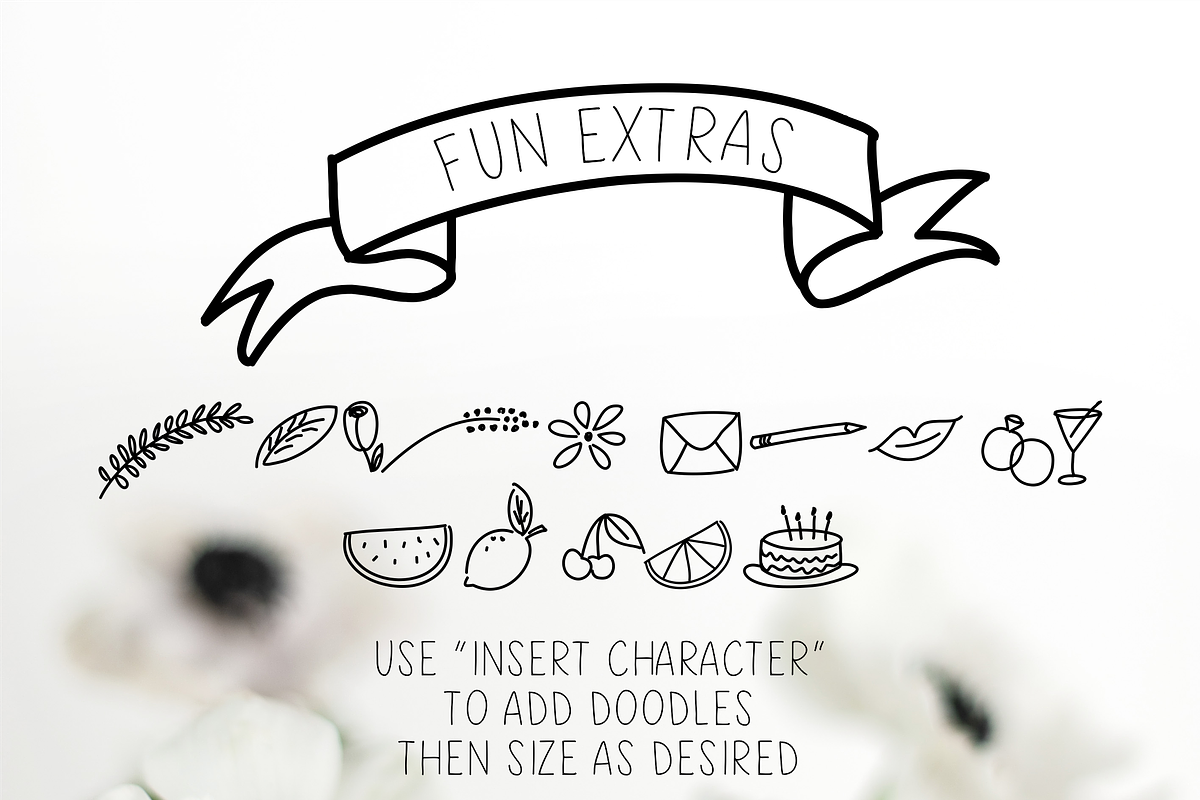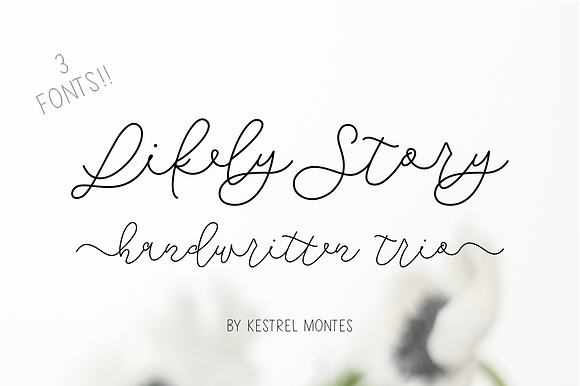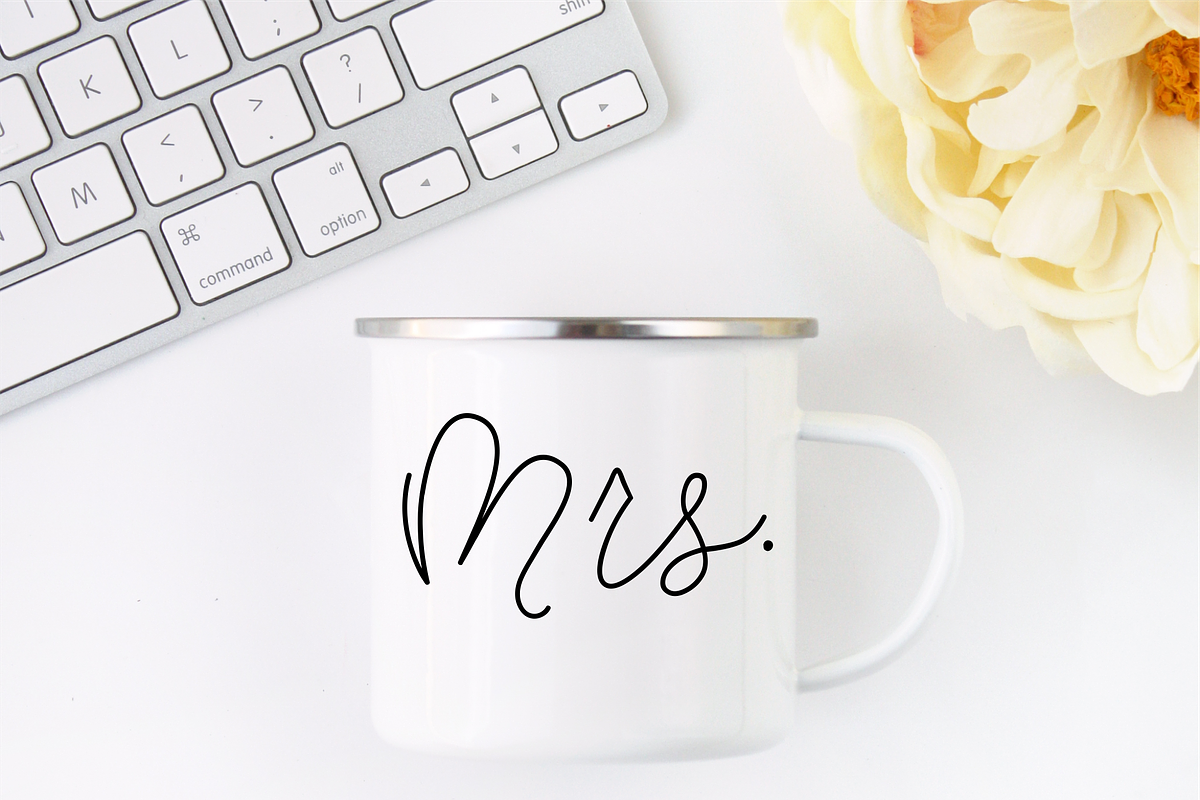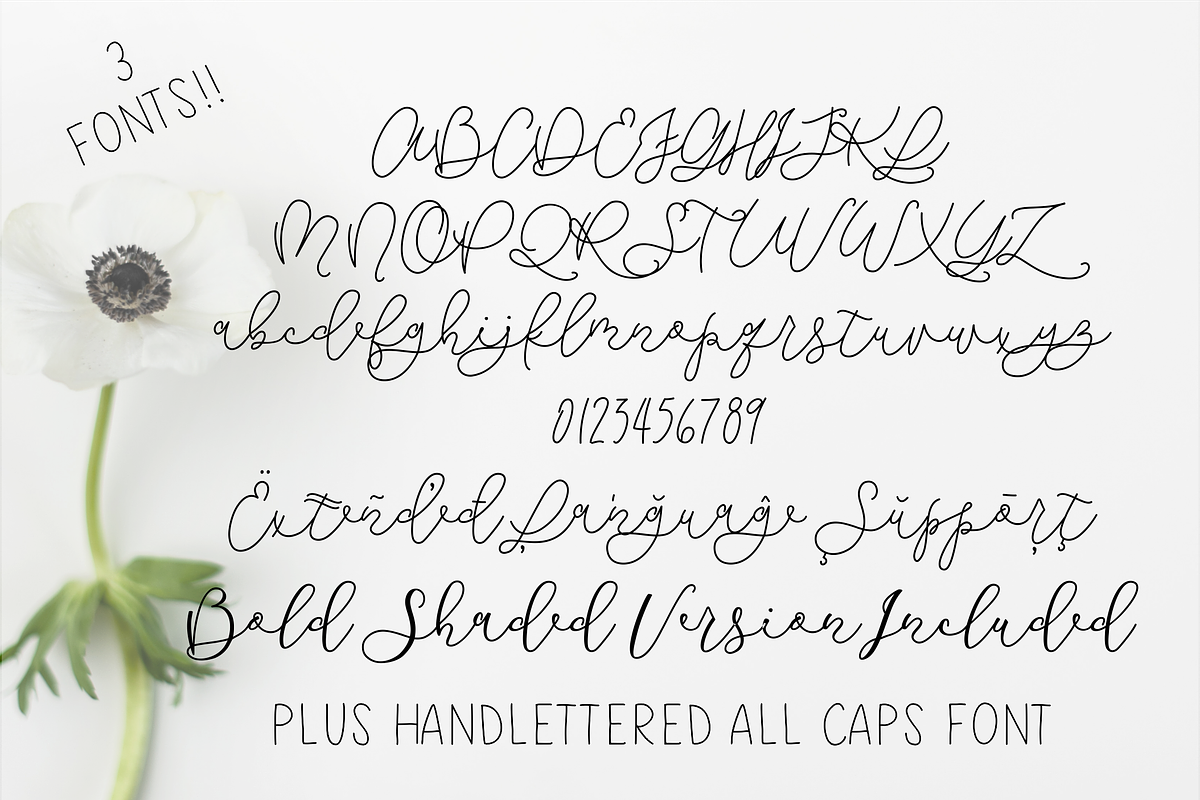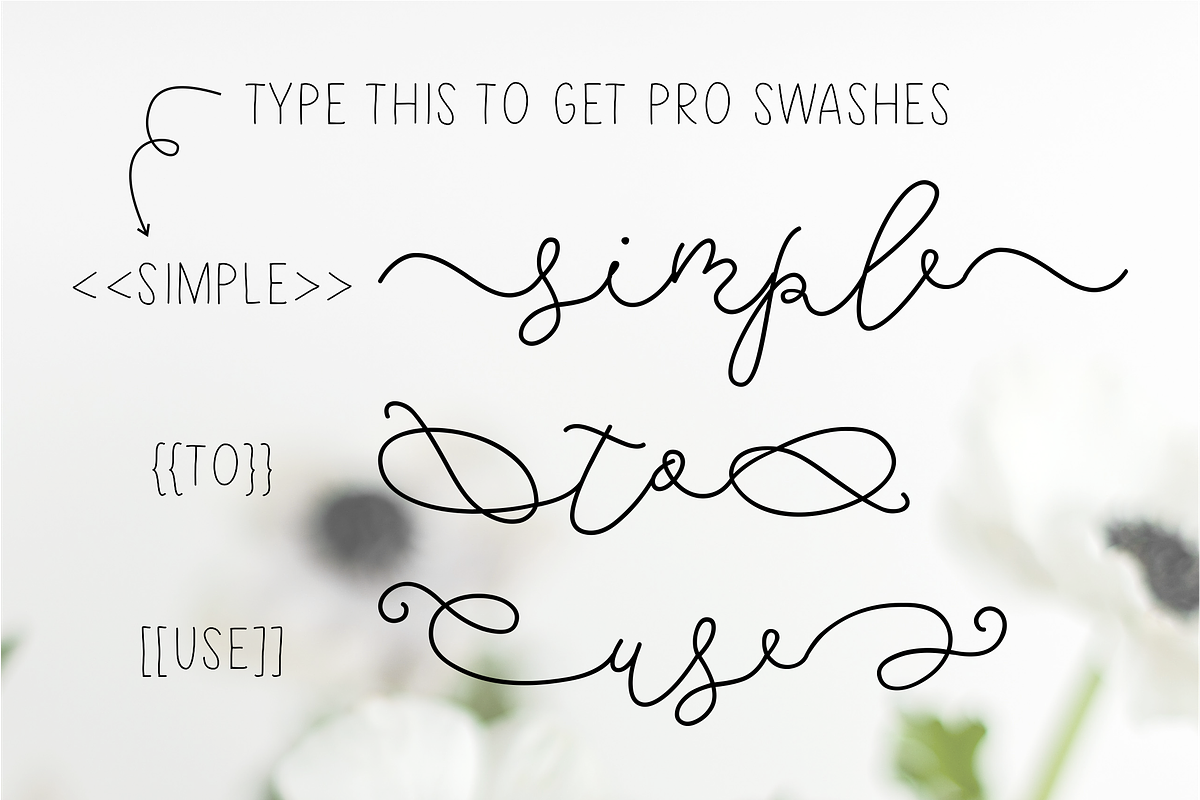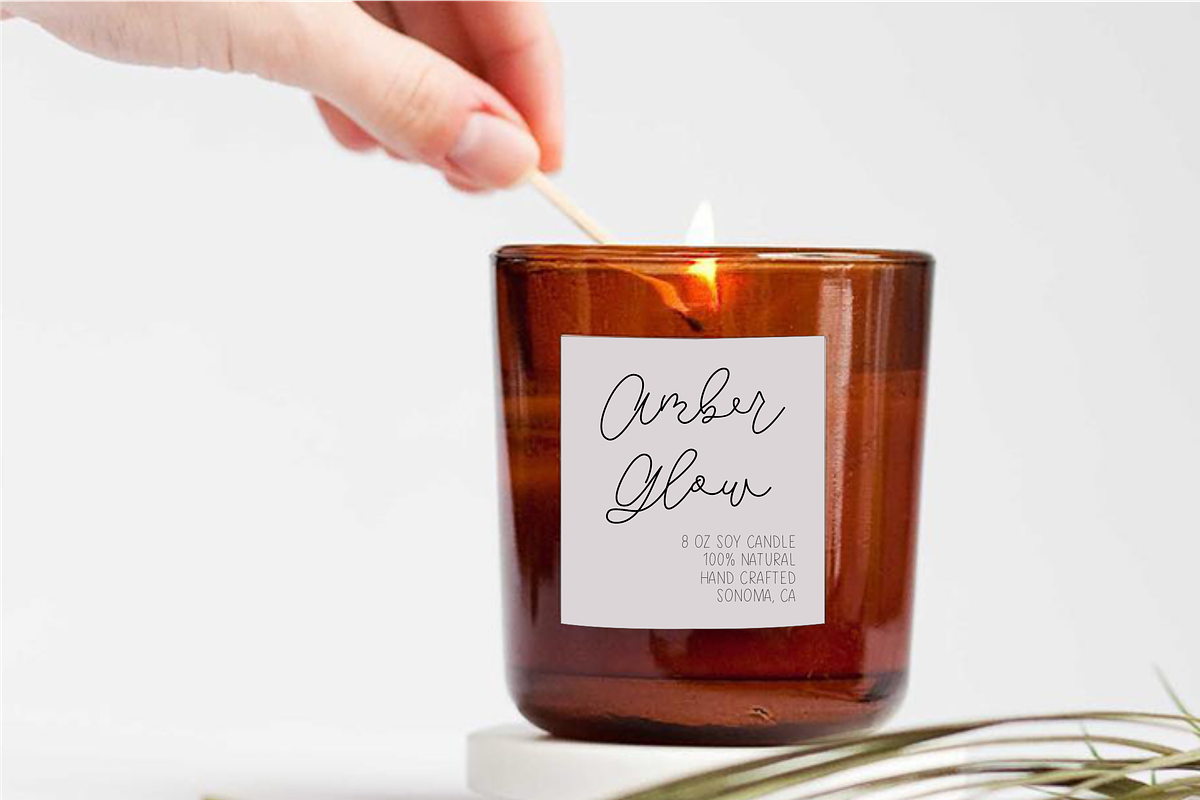
Likely Story Font Trio
Likely Story is a modern handlettered script font by Kestrel Montes that includes monoline, shaded, and all caps coordinating fonts! The optional initial and terminal swashes make this font perfect for invitations, logos and other special projects.
• Pretty initial and terminal swashes for extra adornment
• Includes expanded multilingual characters and punctuation (more than photo samples show)